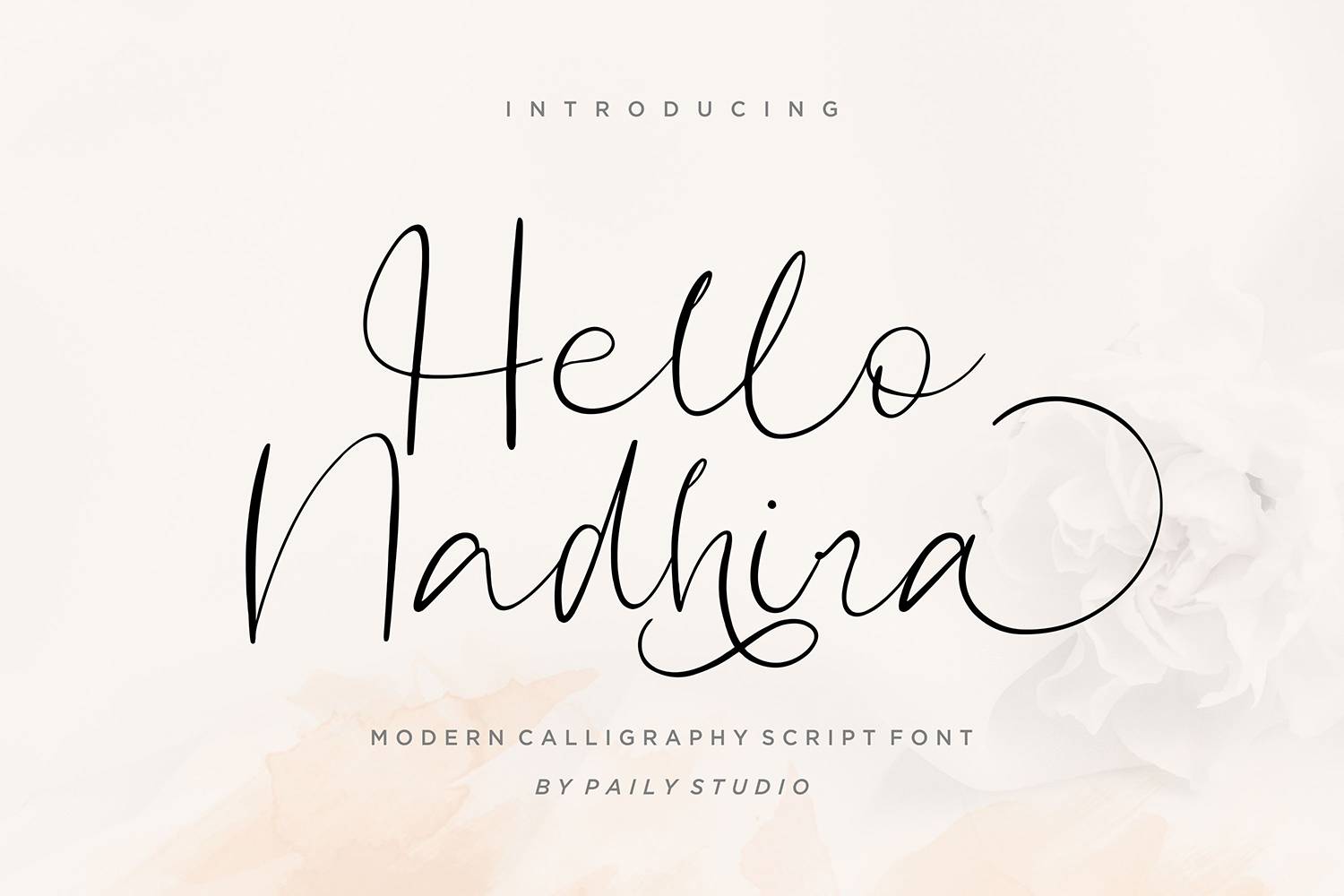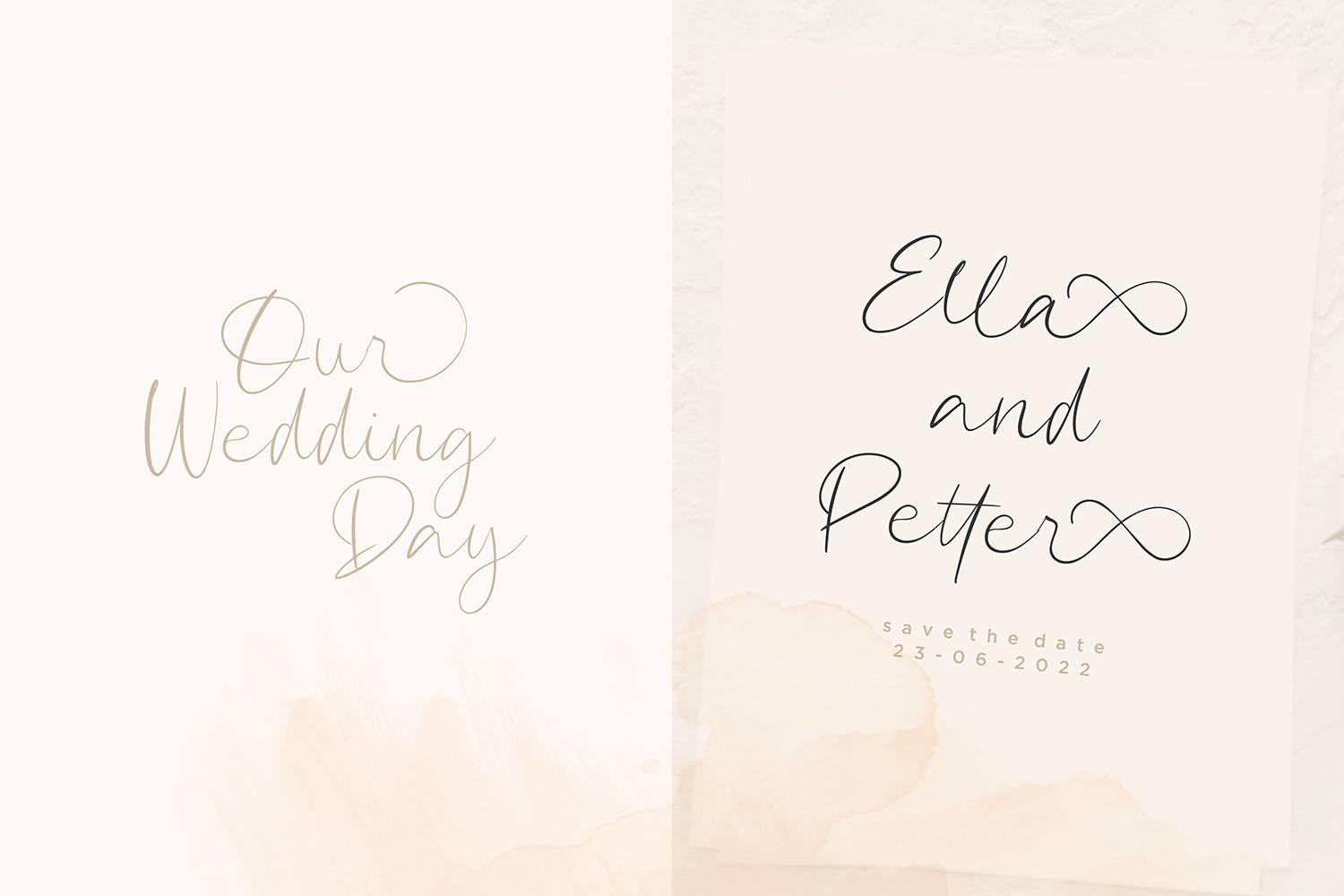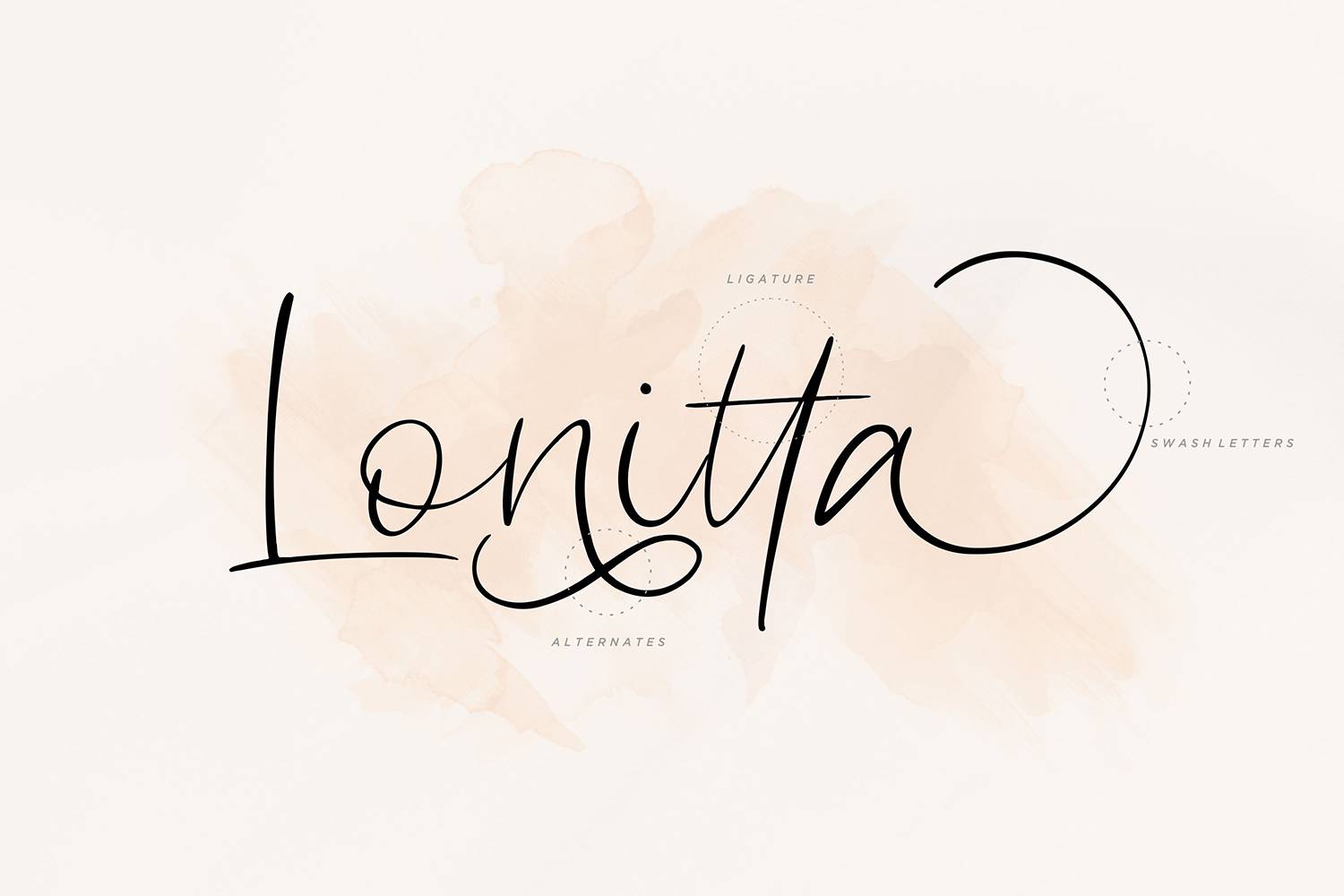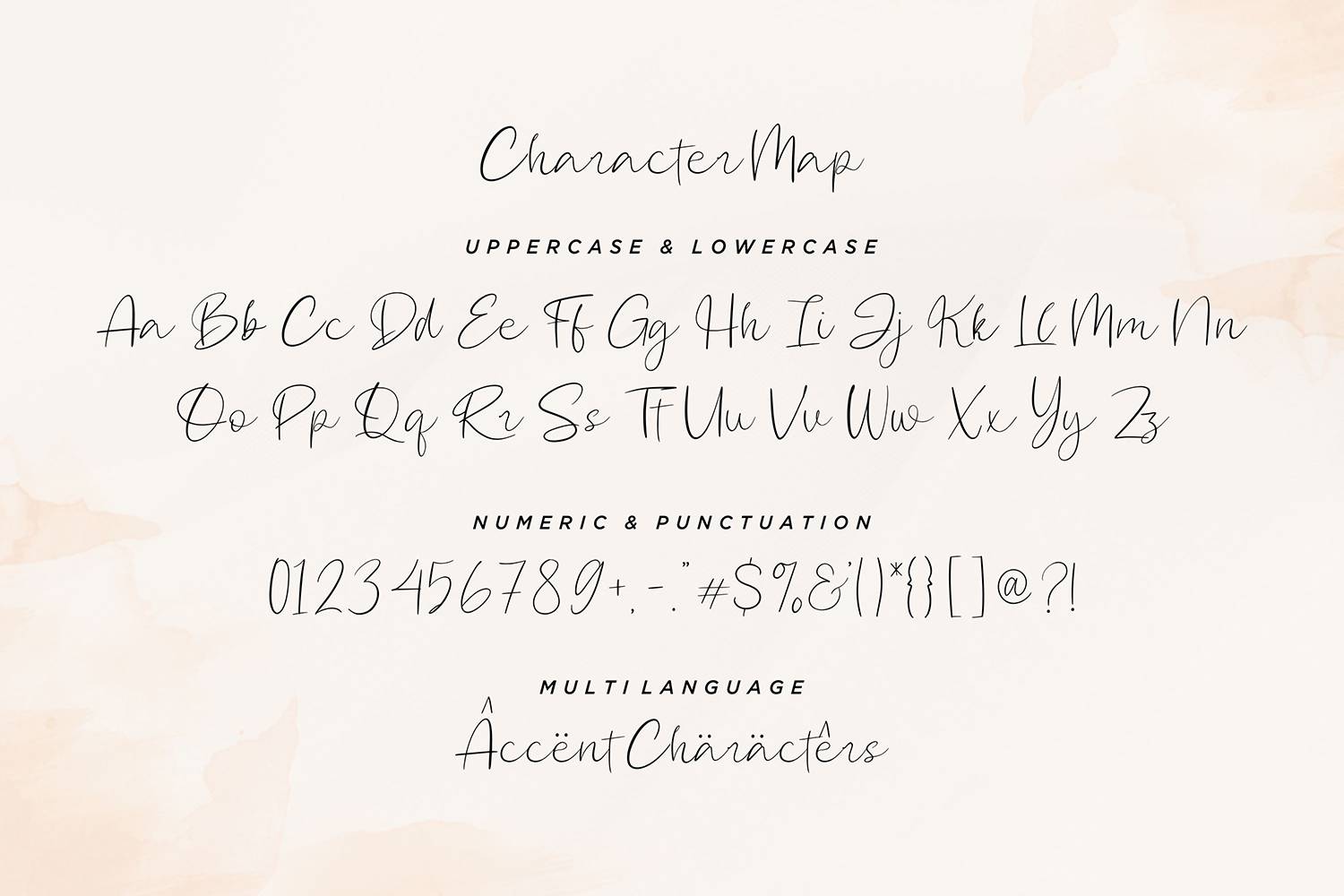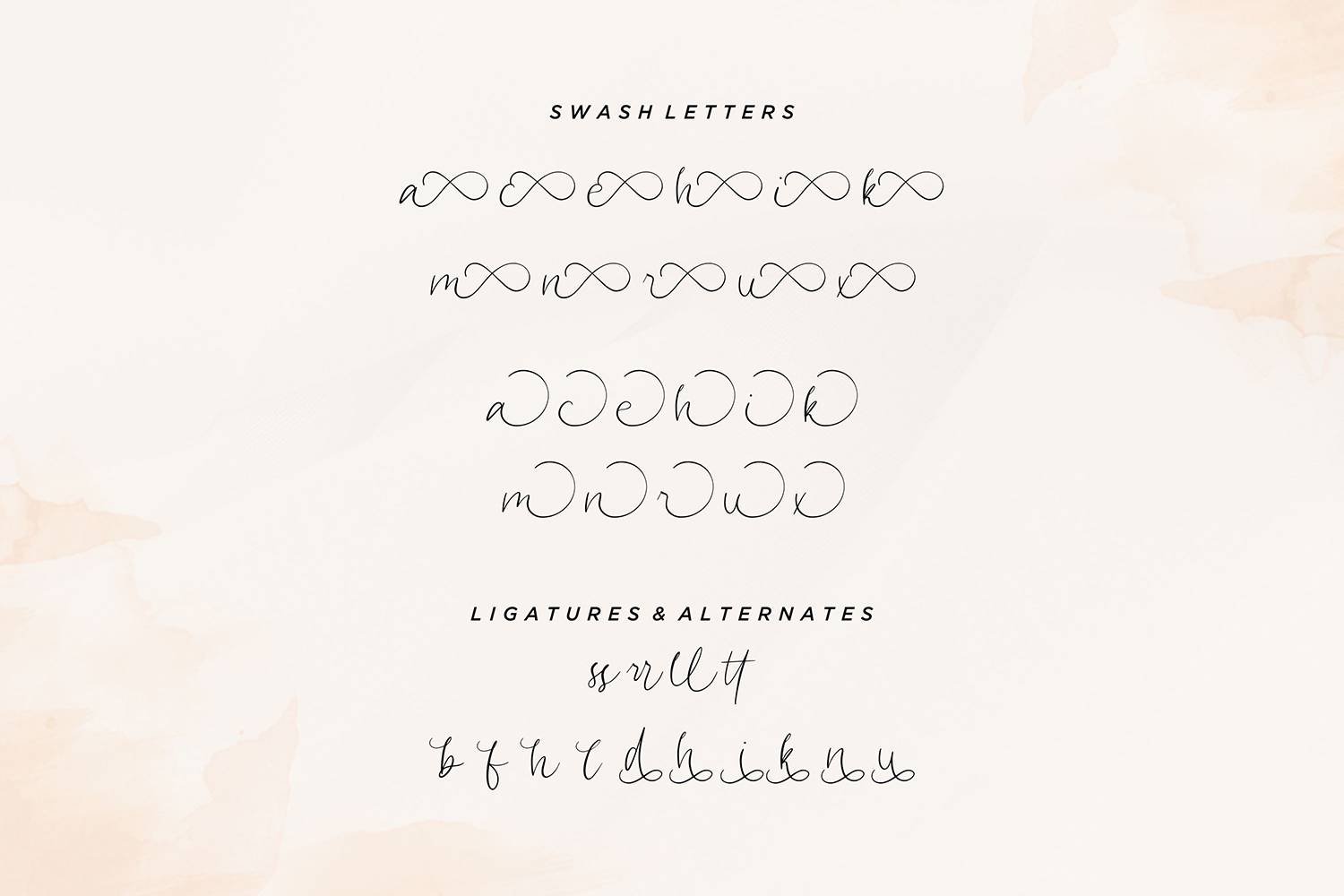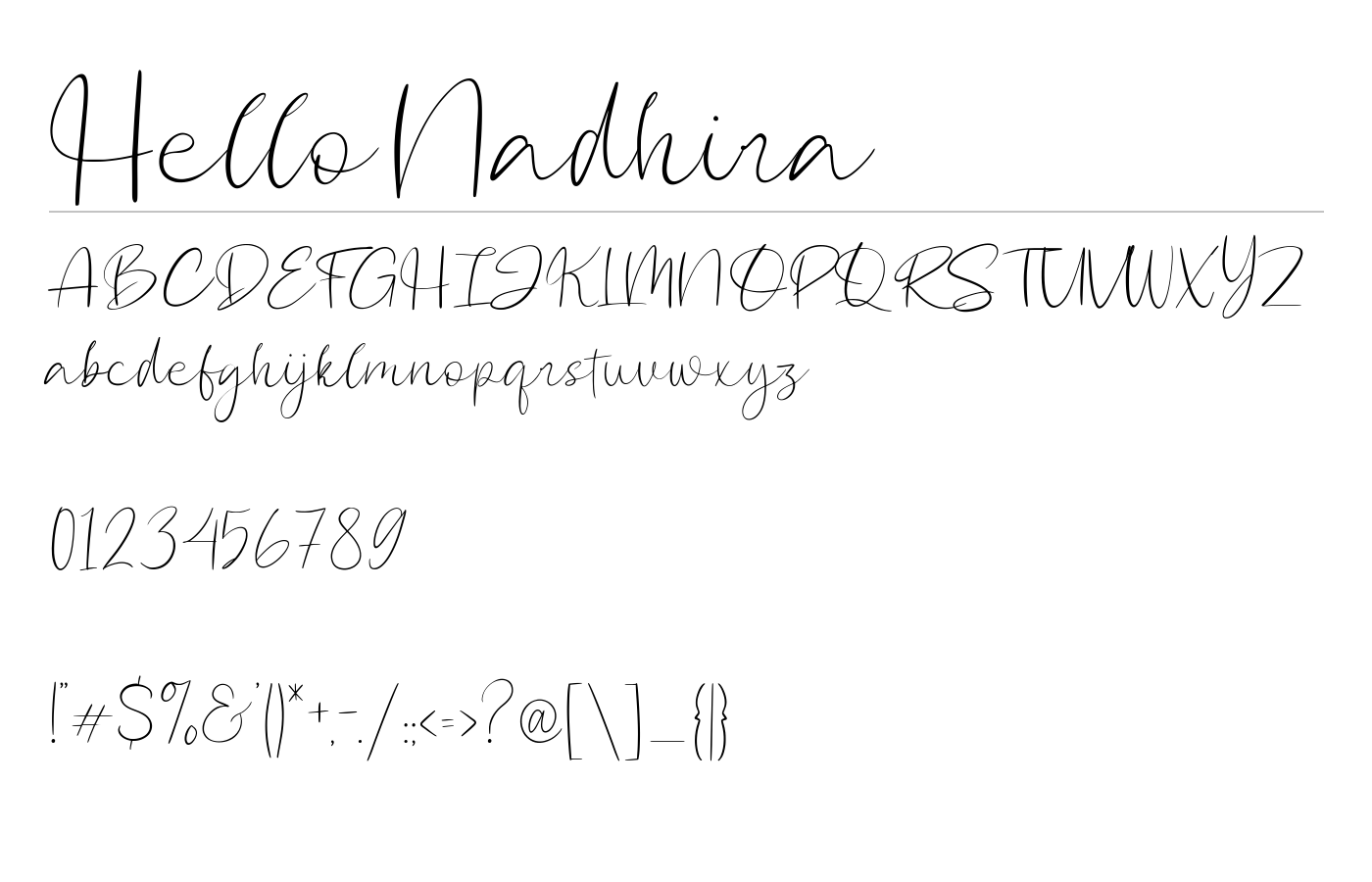
Hello Nadhira is an elegant, delicate script font with a handwritten, airy quality that feels both personal and graceful. Its thin, flowing lines and slightly irregular letterforms give it a charming, casual sophistication, making it perfect for invitations, branding, and editorial designs that seek a touch of warmth and refinement. This font works best in creative contexts where personality and style are key, such as logos, greeting cards, and fashion packaging.
Hello Nadhira Font
About Hello Nadhira Font
| Font family | Hello Nadhira Font |
| Designer | Paily Studio |